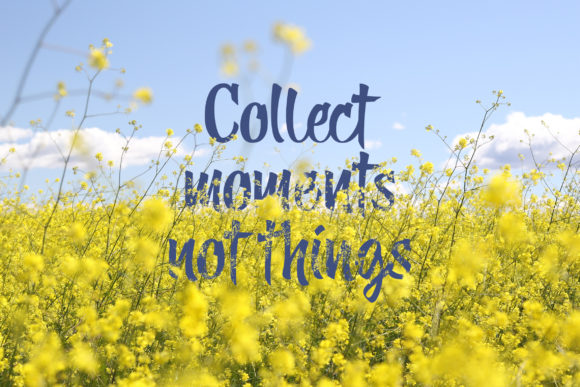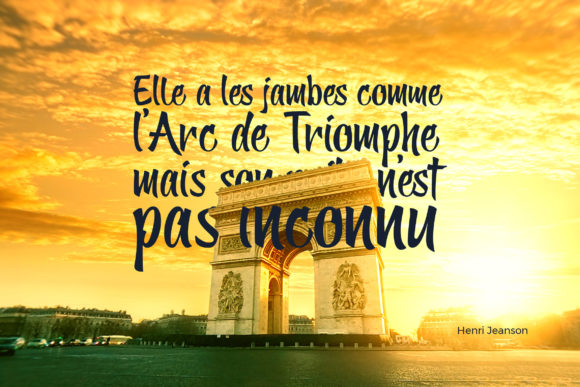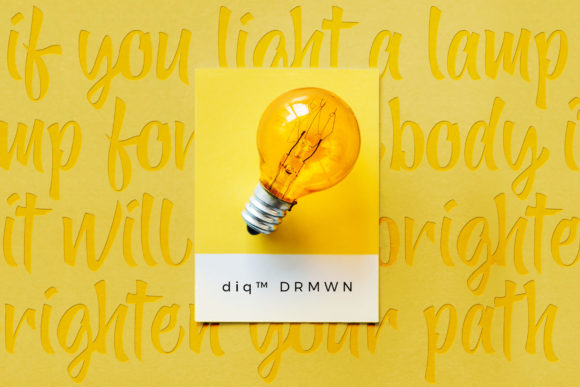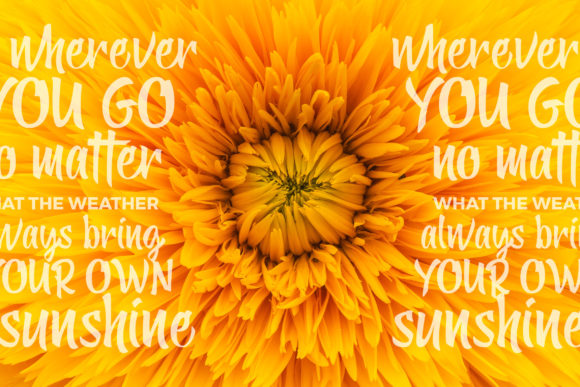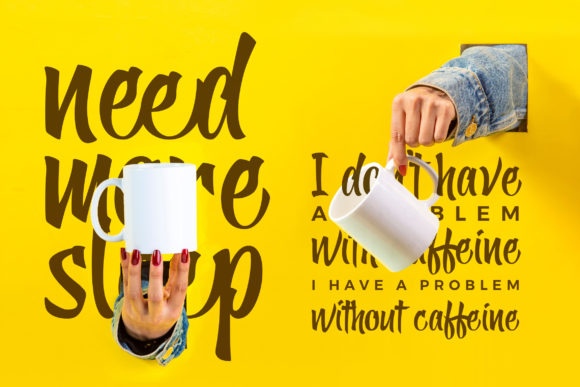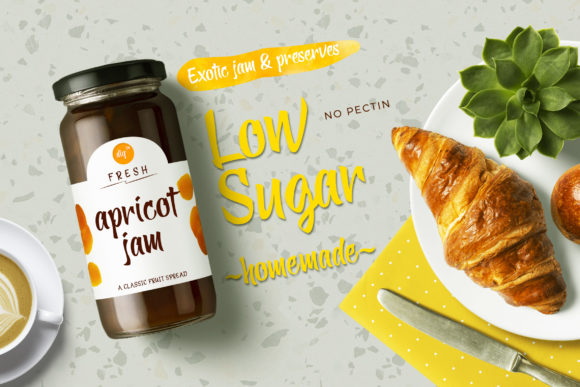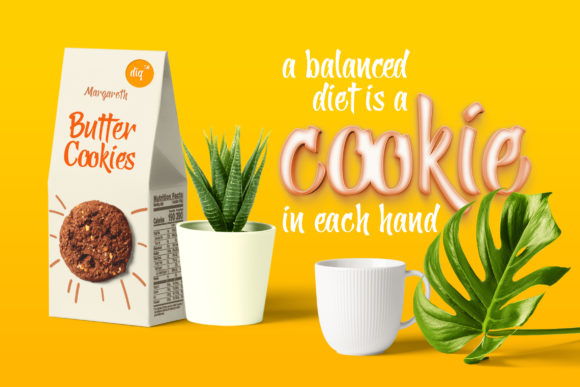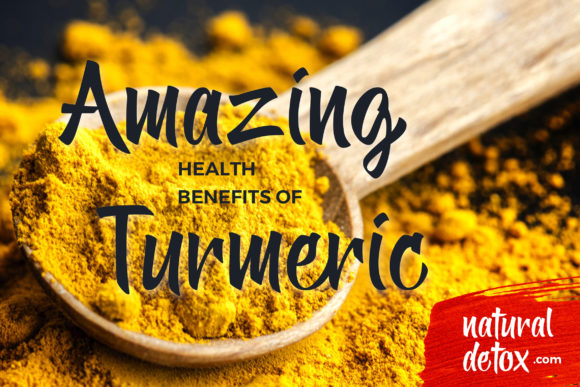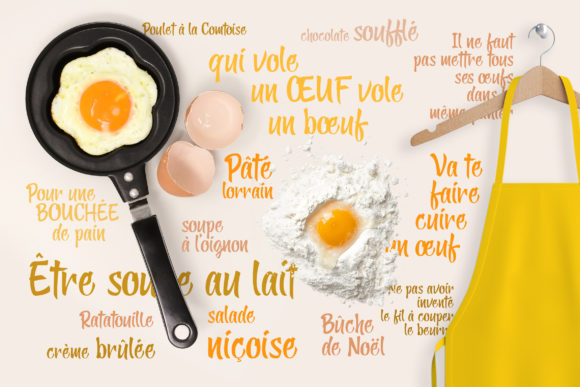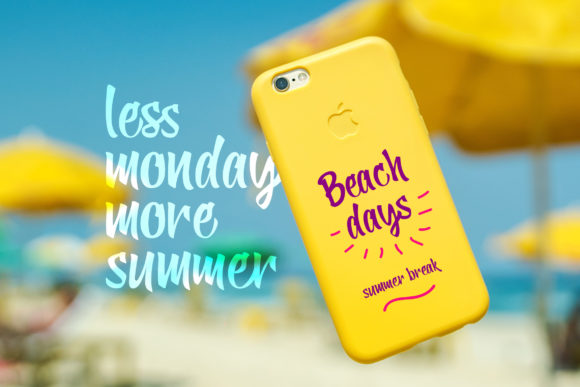
Yellow Ginger Font
About Yellow Ginger Font
The Yellow Ginger is an amazing handwritten script. It has a clear style and is perfect for headers, signs, restaurant menu’s, product labels, prints, branding, social media post, and much more!